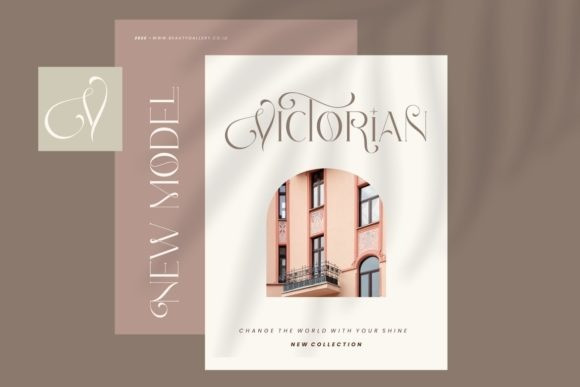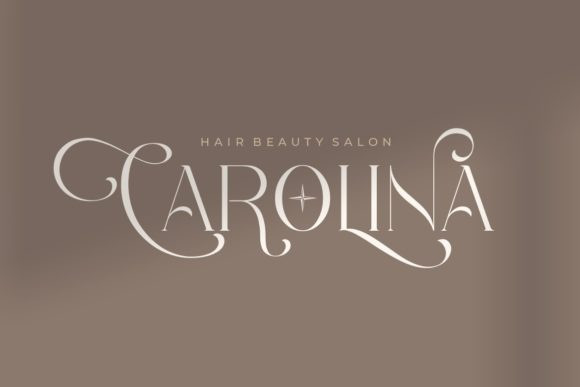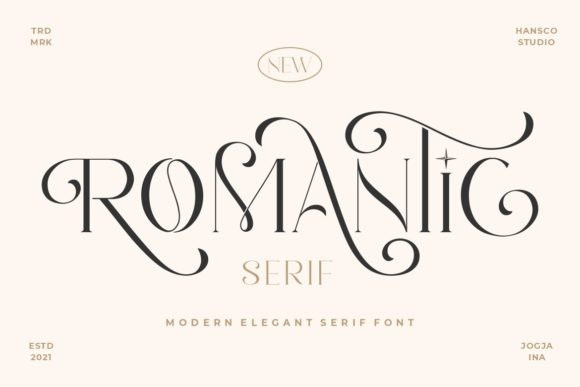
Romantic Font
Romantic Font is an elegant and luxurious serif font. This font is PUA encoded which means you can access all glyphs and swashes with ease! Add it confidently to your favorite creations and let yourself be amazed by the outcome generated.